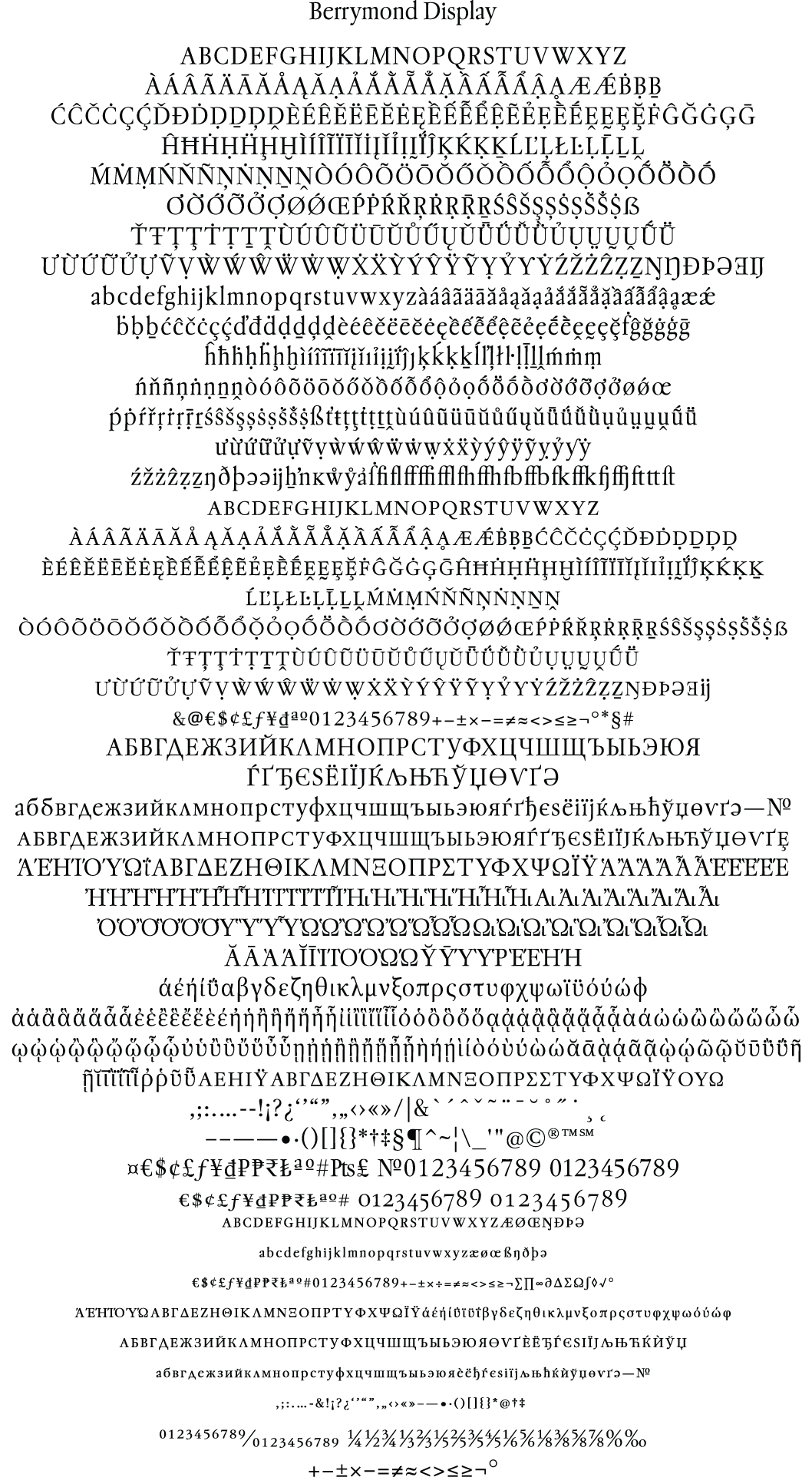
Berrymond® Display
The Character Set graphic included in this section does not show everything available in the design. I suggest you use this design for LARGE settings. It is definitely not a text face.